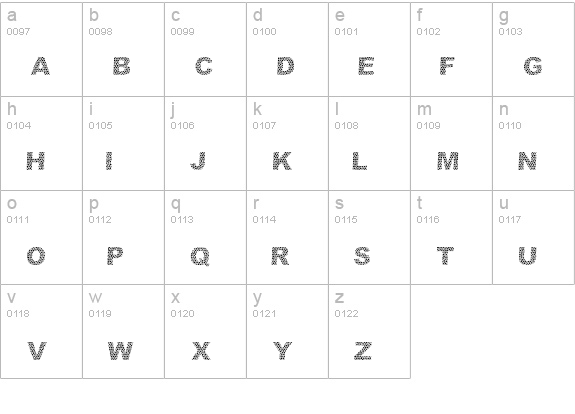
The Dark Skin font is a stunning typeface that exudes sophistication and elegance. Its deep, rich color and bold strokes make it perfect for creating eye-catching designs that demand attention. The contrast between the dark color and the intricate details of the font creates a striking visual impact that is sure to make your projects stand out. This unique font is not only visually appealing, but also versatile and easy to read. Whether you're designing a poster, logo, or website, the Dark Skin font will add a touch of sophistication and style to your work. Best of all, the Dark Skin font is completely free to download at FontsMarket.com. So why wait? Add this beautiful font to your collection today and take your designs to the next level.